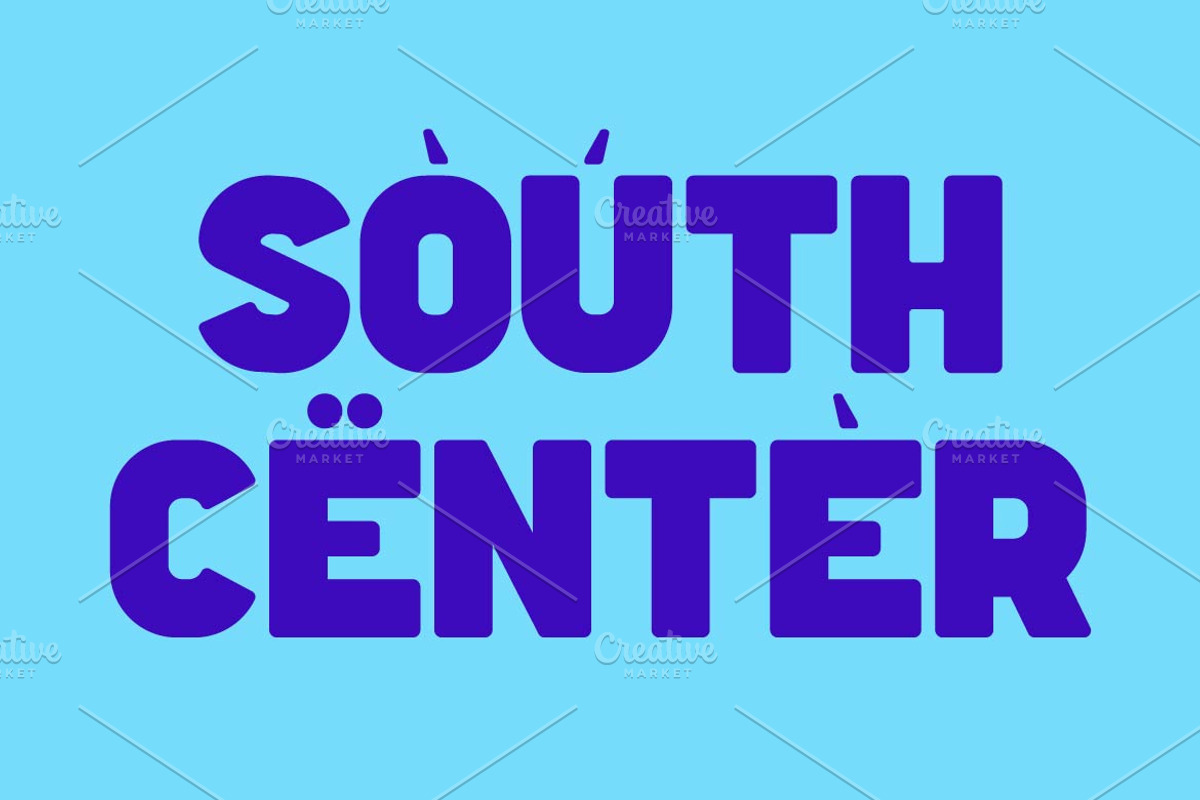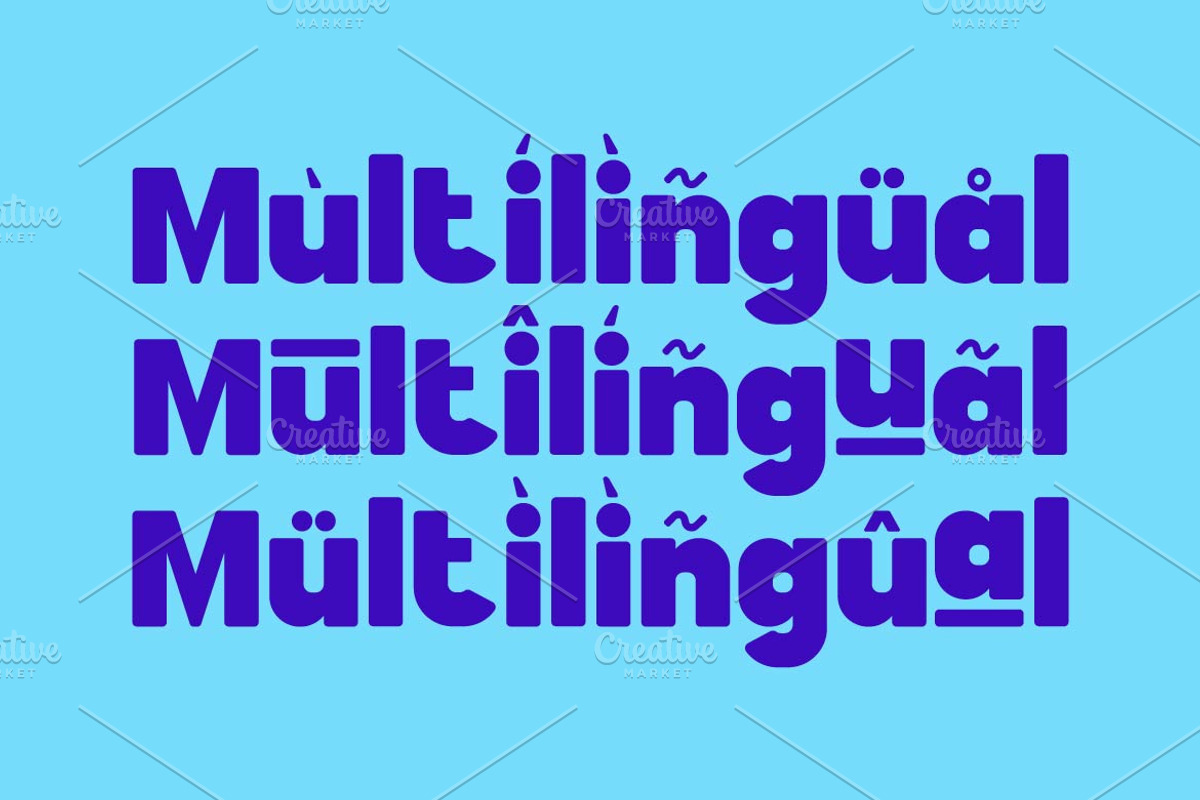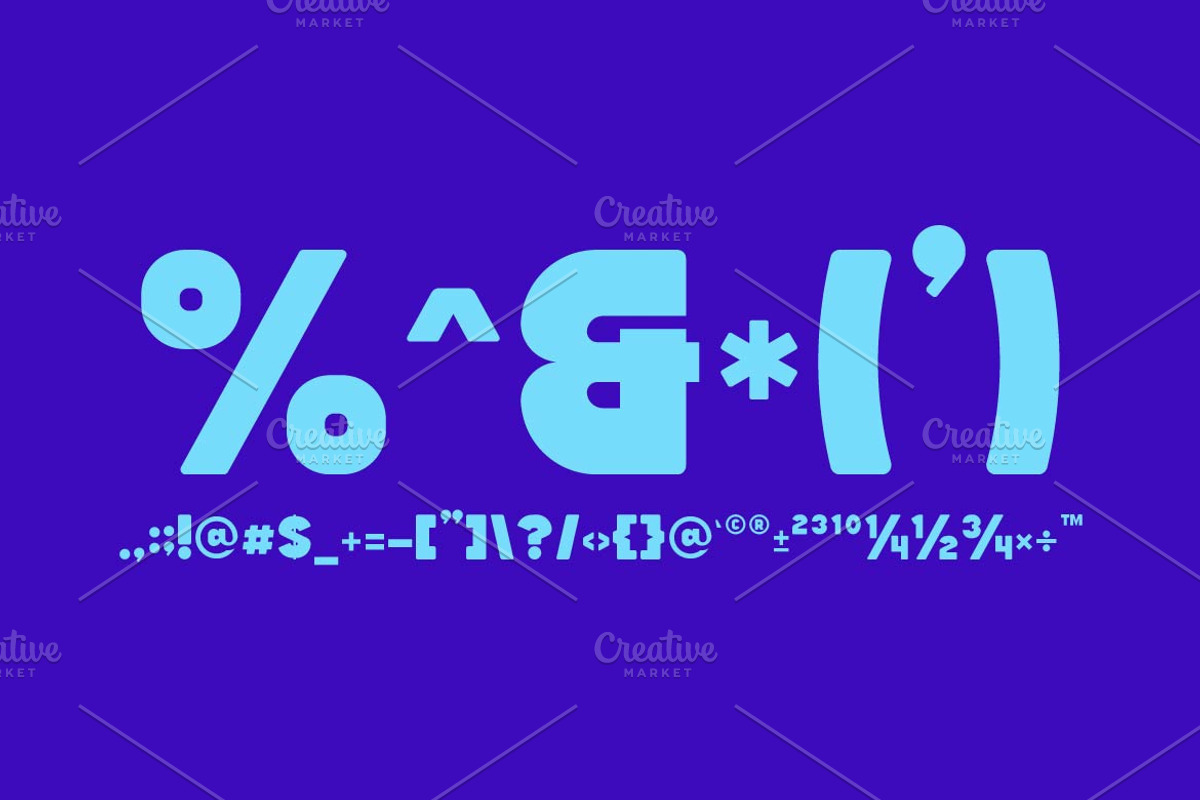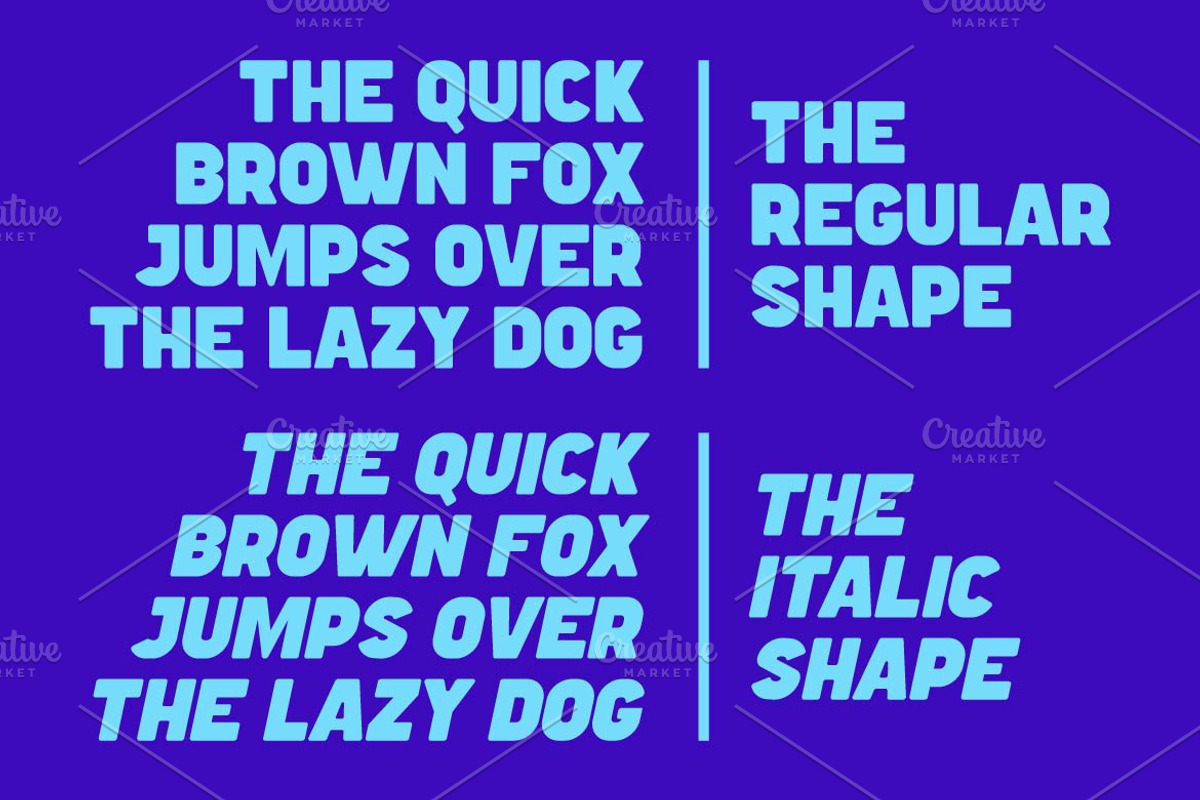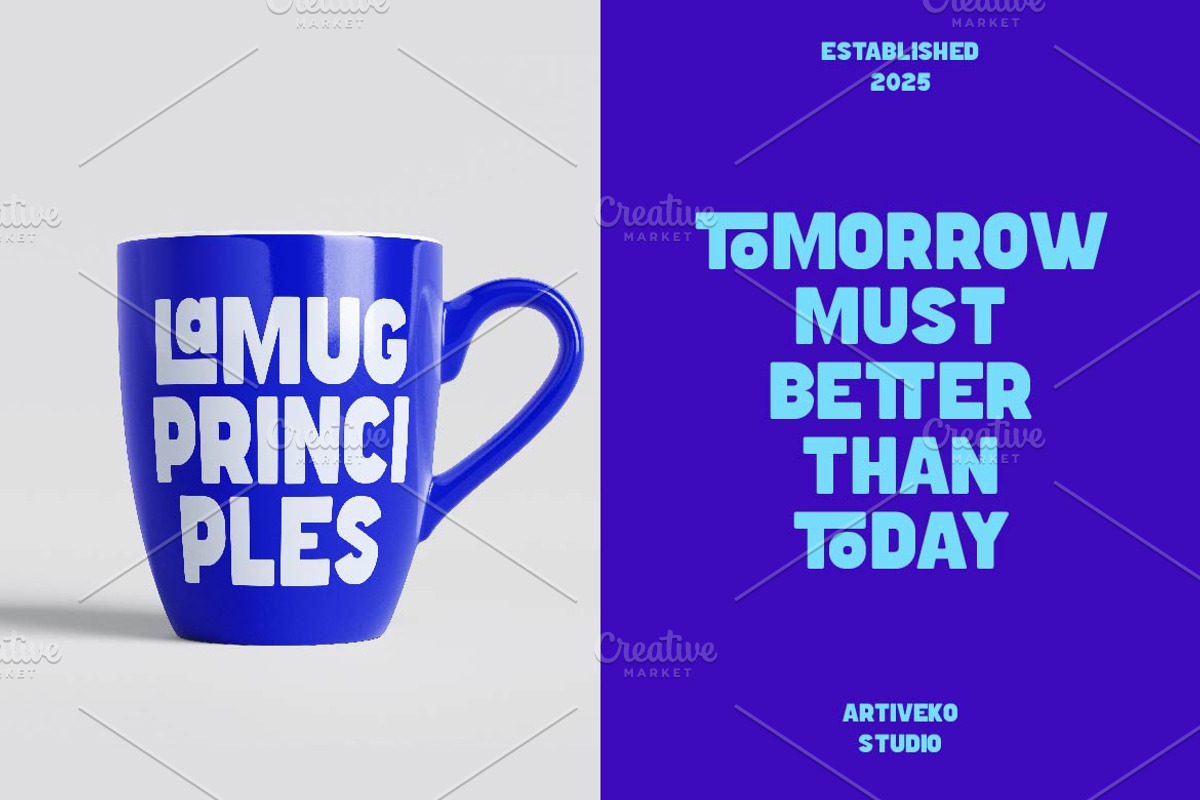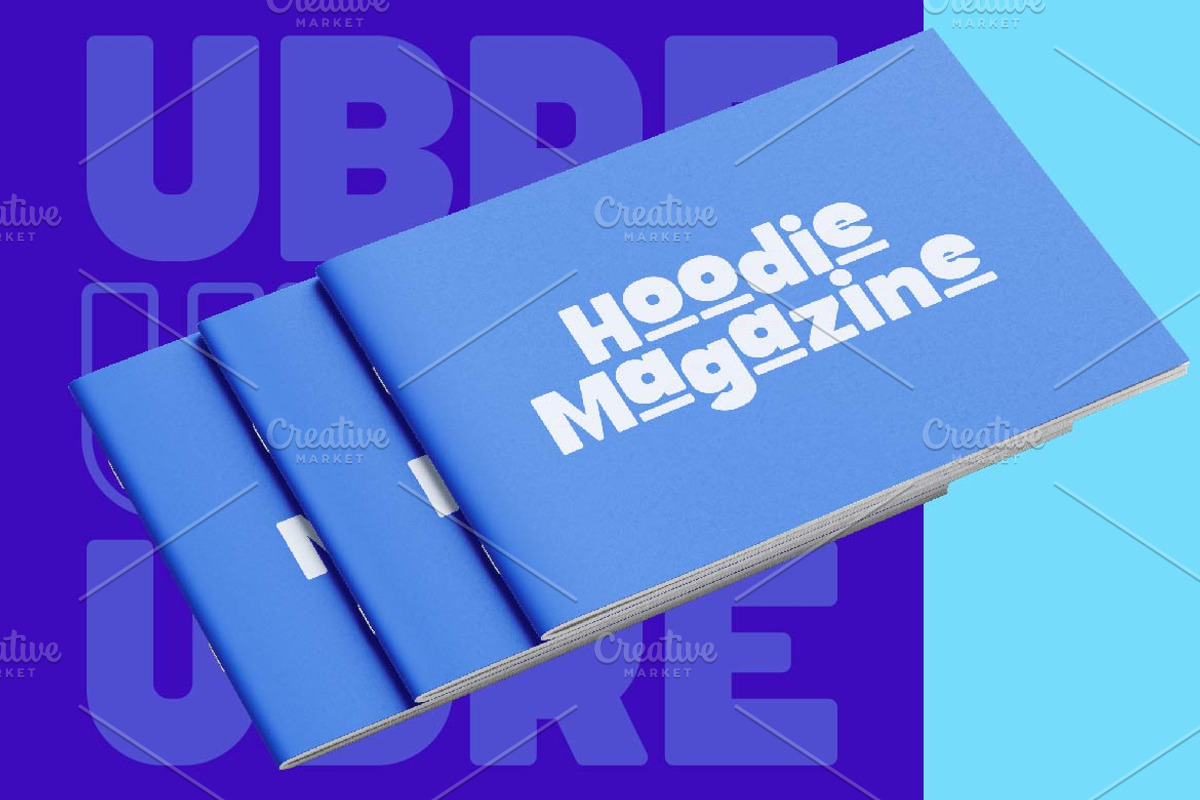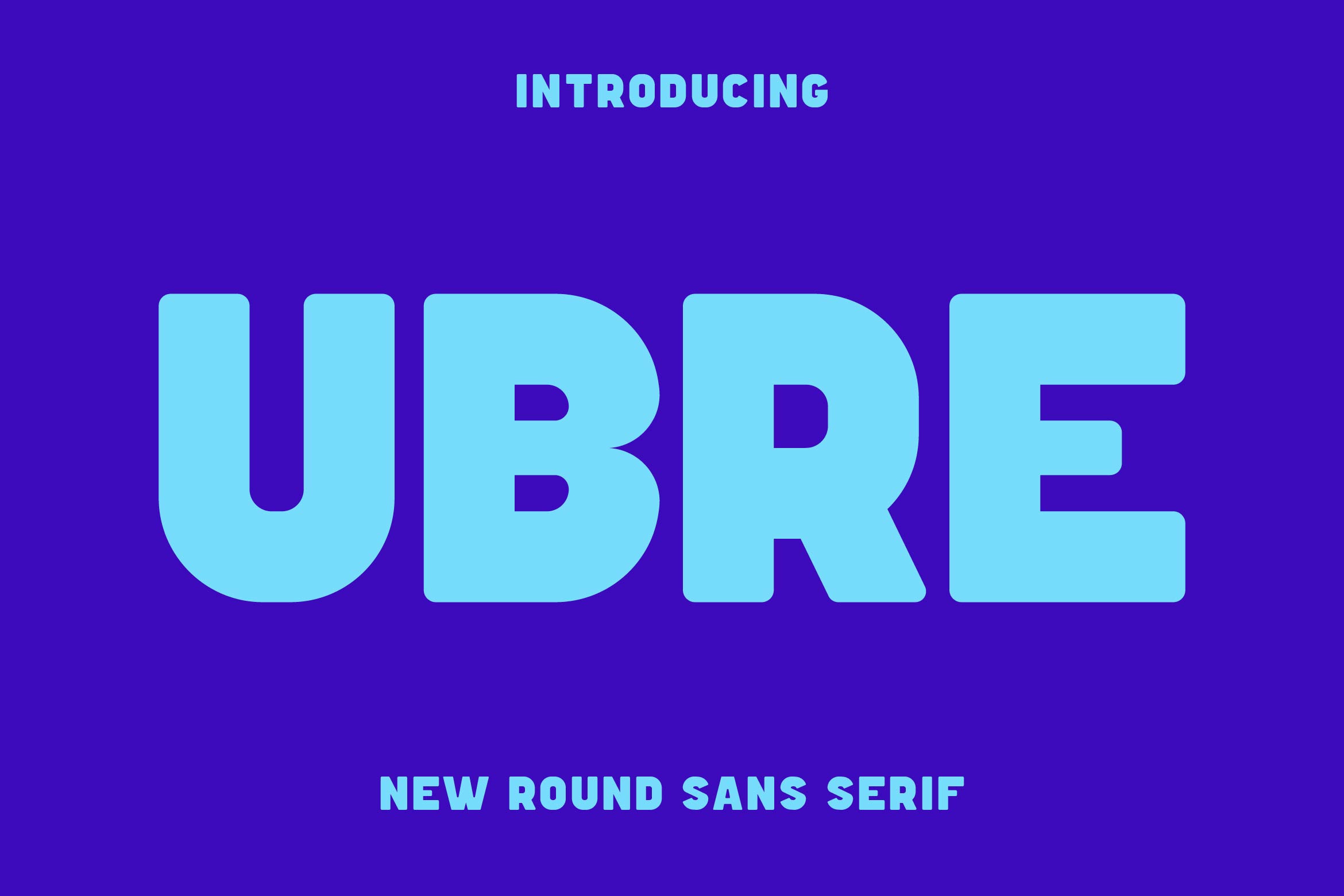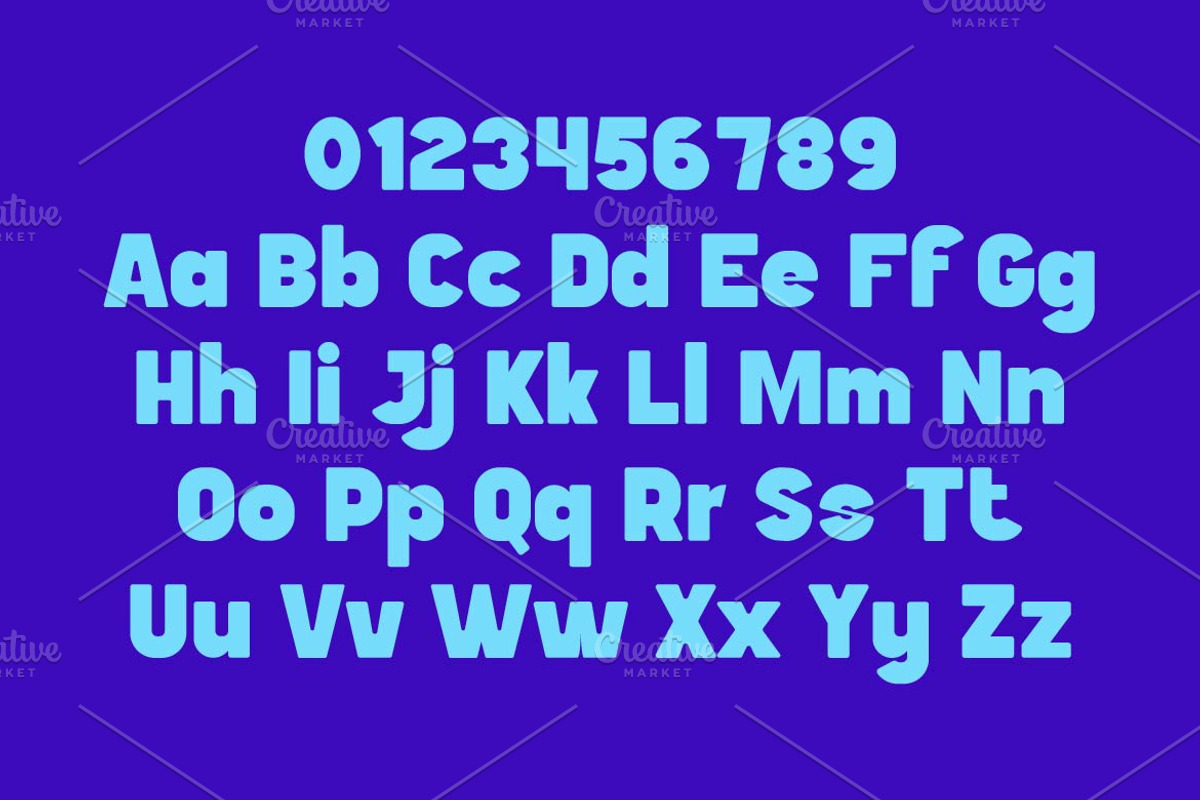
Ubre Retro Sans Font
Ubre is a modern retro font blending nostalgic charm with contemporary design. Its bold curves and vintage-inspired letterforms make it perfect for branding, posters, packaging, and editorial layouts. With multilingual support, ligatures, and alternates, Ubre brings a timeless yet fresh aesthetic, making it an excellent choice for projects that need a stylish retro touch with a modern twist.